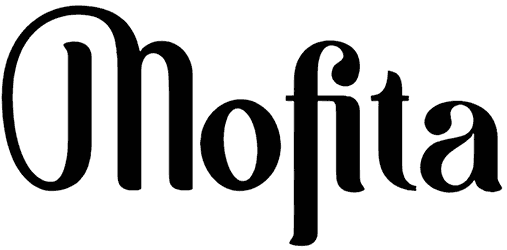
Mofita Font
If you’re looking for a font with a special twist and a long tail, make sure you download Mofita and save it to your collection. This decorative font can convey your heart’s feelings well to greeting cards, love letters, Valentine’s gifts, and any other romantic event.
The handwritten design of the letters of this antique serif font makes it an ideal option for designing more personal works and turns any ordinary project into a creative point in your work history.
Designed by: Alit Design